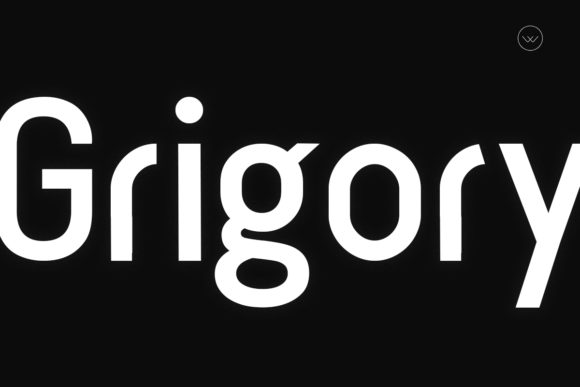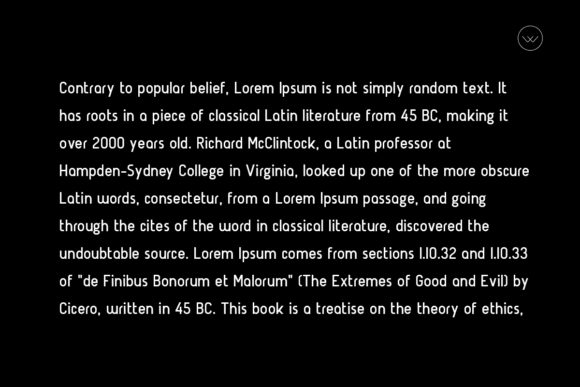
Introducing Grigory Font: The Ultimate Modern Sans Serif for Minimalist Designs
In the world of typography, fonts play a crucial role in conveying messages, evoking emotions, and creating brand identities. For designers and crafters, finding the perfect font can be a daunting task. However, if you’re looking for a modern sans serif font that embodies simplicity and elegance, look no further than Grigory Font. In this article, we’ll explore the features, benefits, and uses of Grigory Font, and why it’s an excellent choice for your next design project.
What is Grigory Font?
Grigory Font is a modern sans serif font designed to cater to the needs of designers and crafters who prefer a minimalist approach. Its clean lines, simple shapes, and uncluttered design make it an ideal choice for various applications, including branding, product packaging, invitations, quotes, t-shirts, labels, posters, and logos.
Key Features of Grigory Font
- Modern Sans Serif Design: Grigory Font boasts a sleek and contemporary sans serif design that exudes sophistication and elegance.
- Minimalist Approach: The font’s simplicity makes it perfect for designs that require a clean and uncluttered look.
- Versatile: Grigory Font can be used for a wide range of applications, from digital designs to print materials.
- Easy to Read: The font’s clear and legible design ensures that your message is conveyed effectively.
Benefits of Using Grigory Font
So, why choose Grigory Font for your design projects? Here are some benefits that make it an excellent choice:
- Enhances Brand Identity: Grigory Font’s modern design helps create a strong brand identity that resonates with your target audience.
- Increases Versatility: The font’s versatility allows you to use it across various platforms, from digital designs to print materials.
- Saves Time: With Grigory Font, you can create professional-looking designs quickly and efficiently.
- Unique and Creative: The font’s unique design elements help you stand out from the crowd and create distinctive designs.
Use Cases for Grigory Font
Grigory Font is suitable for a wide range of applications, including:
- Branding: Create a strong brand identity with Grigory Font’s modern sans serif design.
- Product Packaging: Use Grigory Font to create eye-catching product packaging that stands out on store shelves.
- Invitations: Design elegant and sophisticated invitations for special occasions.
- Quotes: Create inspiring and motivational quotes that resonate with your audience.
- T-Shirts: Design stylish and modern t-shirts with Grigory Font.
- Labels: Use Grigory Font to create labels that are both functional and visually appealing.
- Posters: Design striking posters that grab attention.
- Logos: Create a professional logo that represents your brand’s values and mission.
In conclusion, Grigory Font is an excellent choice for designers and crafters who prefer a modern sans serif font with a minimalist approach. Its versatility, legibility, and unique design elements make it suitable for various applications. Whether you’re creating a brand identity, product packaging, or a design project, Grigory Font is sure to elevate your designs to the next level. So, why wait? Explore the world of Grigory Font today and discover the endless possibilities it offers.
Takeaway: Grigory Font is a modern sans serif font perfect for minimalist designs, offering versatility, legibility, and unique design elements. It’s ideal for branding, product packaging, invitations, quotes, t-shirts, labels, posters, and logos.